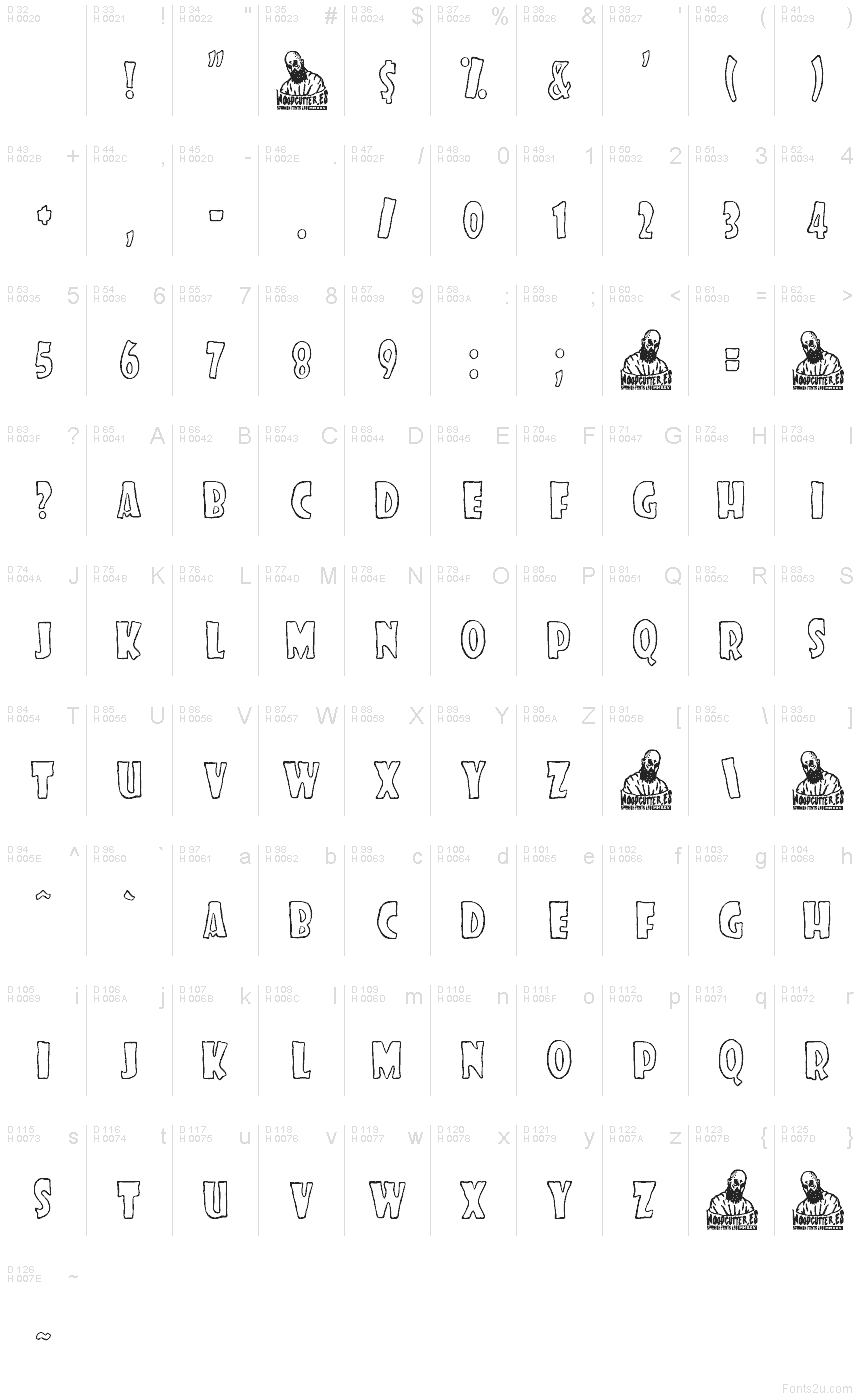
Vorschau der Schriftart The Cartoon Hotel 05
The Cartoon Hotel 05 font by Woodcutter is a free cartoon outlined display typeface. Chunky, hand-drawn letters wobble just enough to feel playful, with sketchy outlines that look like they were doodled with a felt-tip pen. The loose spacing and soft, inflated shapes give every word a bouncy, animated rhythm that instantly reads as fun and kid-friendly.
Using The Cartoon Hotel 05 font, you can bring character to children’s book covers, comic titles, YouTube thumbnails, party invitations, toy packaging, and playful posters. This free font loves bold sizes where its inky, irregular edges can really show. For supporting text, pair it with a clean geometric sans so the main headline stays loud, quirky, and easy to read.
The Cartoon Hotel.